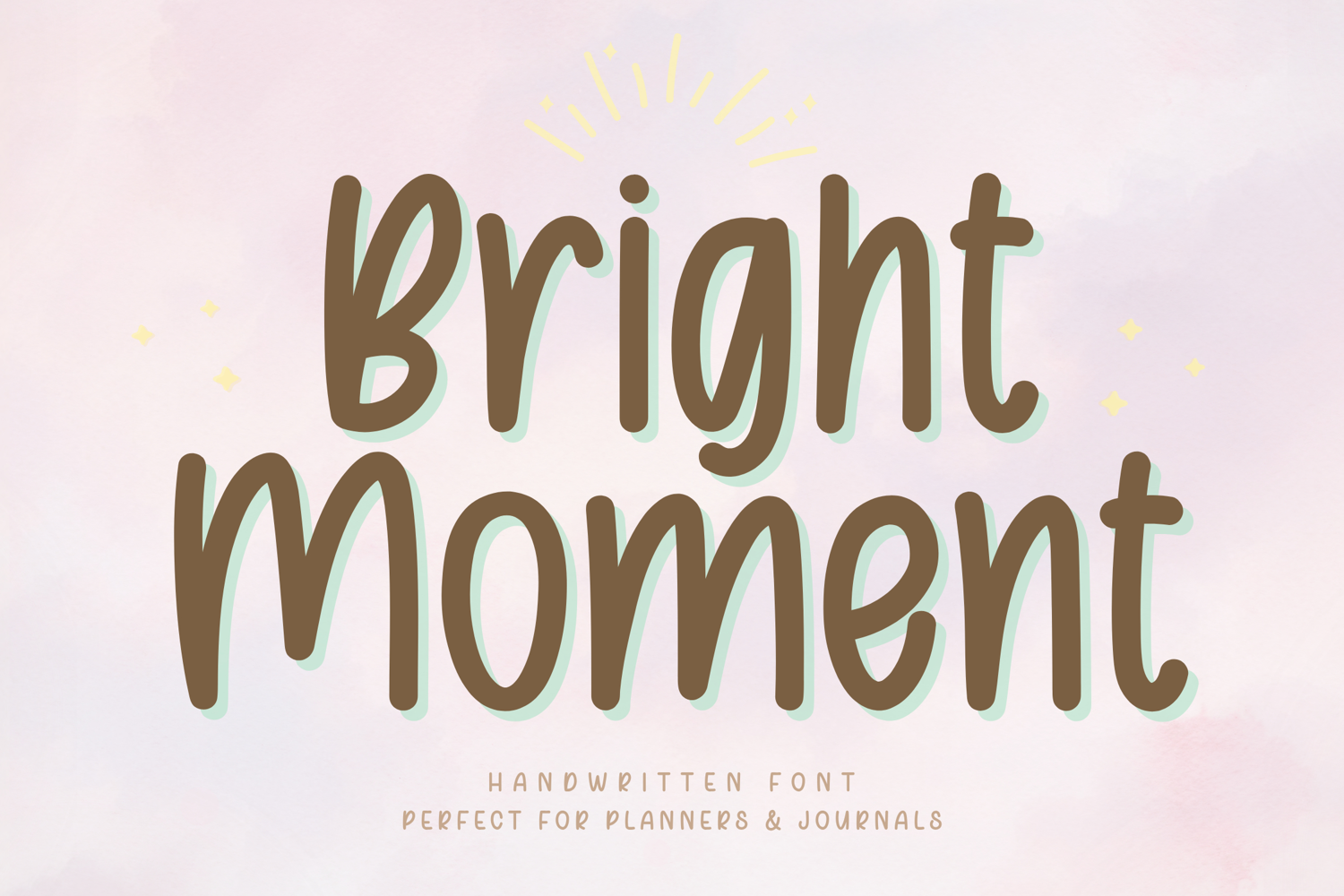
Bright Moment - Handwritten Font
Bright Moment – Handwritten Font
Bright Moment is a soft and friendly handwritten font designed to bring a warm and uplifting feel to your creative projects. With its smooth curves and clean letterforms, this font creates a natural handwritten style that feels both natural and easy to read.
Carefully crafted for everyday usability, Bright Moment works beautifully across a wide range of applications—from digital planners and journals to branding, social media, and Cricut projects. Its balanced strokes and consistent spacing make it especially suitable for note-taking, daily planning, and long-form writing.
Full set of uppercase and lowercase letters
Numerals, punctuation, and symbols
Cricut and cutting projects
Digital planners
Stickers and printable designs
Branding and logos
Social media graphics
Bright Moment is designed with smooth, balanced strokes and a clean handwritten flow, making it easy to read and comfortable for everyday use.